As a designer, decorative fonts are where typography turns into personality. I use them when a project needs emotion, charm, or a memorable visual accent that goes beyond neutral readability. Decorative fonts are perfect for branding details, headlines, social media visuals, invitations, children’s products, seasonal designs, and creative book covers. They help a design speak instantly, even before the message is read.
When I work on branding or social media graphics, decorative fonts often become the focal point. A playful or ornamental typeface can replace illustrations entirely and still feel complete. For inspiration in this area, I often revisit curated ideas like best fonts for Instagram stories, especially when designing bold story slides or carousel covers.
Decorative fonts are also incredibly effective for long-form content visuals. While I wouldn’t use them for body text, they work beautifully for blog titles, featured images, and section headers. If you’re combining decorative fonts with readable text, this guide on fonts for blog titles and headers offers a solid balance approach.
Another area where decorative fonts shine is KDP publishing. For journals, planners, and low-content books, decorative fonts bring uniqueness to covers and interior dividers. I often pair them with clean sans-serif fonts for structure. When choosing fonts specifically for interiors, I rely on insights from the KDP interior fonts guide, which helps avoid readability issues.
Baby Alphabet Font
Understanding Decorative Fonts
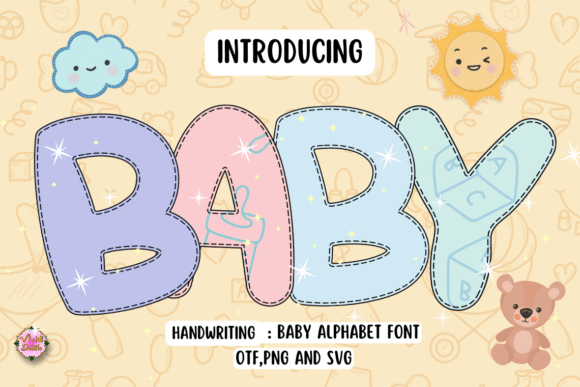
Baby Alphabet Font
I enjoy using the Baby Alphabet Font when I want my designs to feel soft, gentle, and welcoming. The rounded letterforms and pastel tones create a calm, playful mood that works beautifully for baby announcements, invitations, nursery decor, and kids’ projects. I like how the handwritten touch keeps it personal while staying easy to read. This font helps my designs feel warm, innocent, and thoughtfully made.
Glora Heart Font
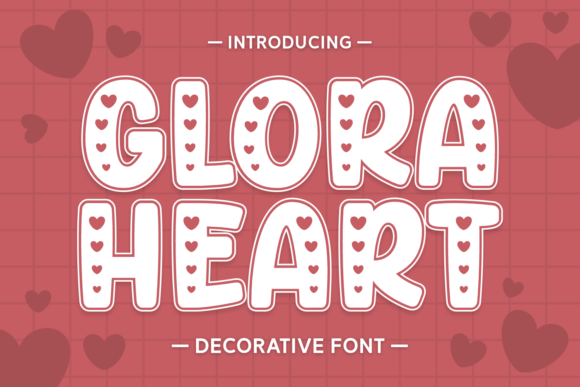
Glora Heart Font
I love working with the Glora Heart Font when I need something bold, cheerful, and full of love. The chunky shapes and heart cutouts give it a fun, cartoon-like personality that instantly grabs attention. I use it for Valentine’s Day designs, kids’ products, casual branding, and custom apparel. This font is perfect when I want typography to feel playful, sweet, and unforgettable.
Alina Monogram Font Font
Alina Monogram Font
I like using the Alina Monogram Font for projects that need a personal and decorative touch. The letterforms feel elegant yet friendly, making them great for invitations, stationery, greeting cards, and social media graphics. I enjoy how it adds charm without feeling too formal. This font helps my designs feel refined, romantic, and visually balanced.
Butterfly Monogram Font
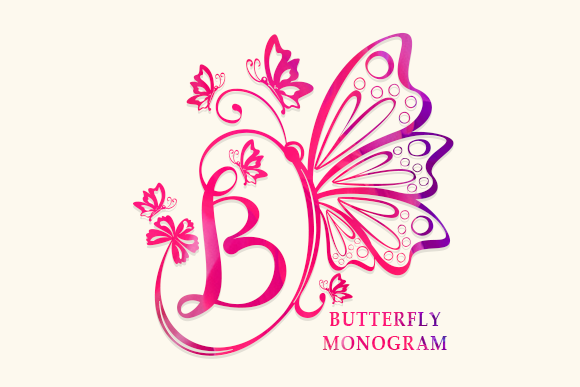
Butterfly Monogram Font
I enjoy working with the Butterfly Monogram Font because it feels graceful and ornamental. The decorative details add a soft elegance that works beautifully for wedding invitations, stationery, and feminine branding. I like how it instantly elevates a layout and gives it a delicate, polished look. This font is ideal for projects that need beauty and sophistication.
Butterfly Inside Font
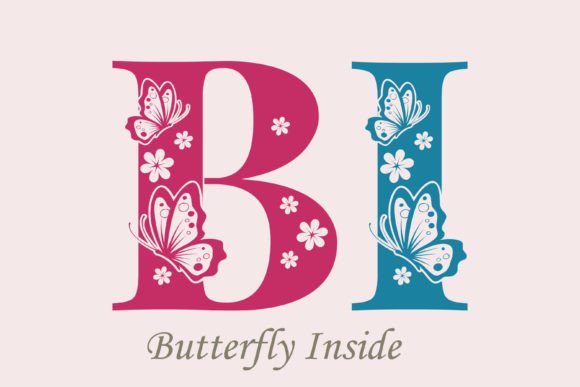
Butterfly Inside Font
I like using the Butterfly Inside Font when I want subtle decoration with a romantic feel. The ornamental elements inside the letterforms add interest without overpowering the design. I use it for stationery, greeting cards, and social media visuals where elegance matters. This font helps my projects feel delicate, expressive, and thoughtfully styled.
In conclusion, decorative fonts are essential tools for designers who want their work to feel expressive, distinctive, and emotionally engaging. From branding and social media to KDP covers and creative print projects, they add character that neutral fonts simply can’t provide. When used with intention and paired with readable typefaces, decorative fonts elevate designs without overwhelming them. They help shape visual identity, capture attention quickly, and leave a lasting impression. Thoughtfully chosen decorative fonts turn simple layouts into memorable, personality-driven designs that truly stand out.